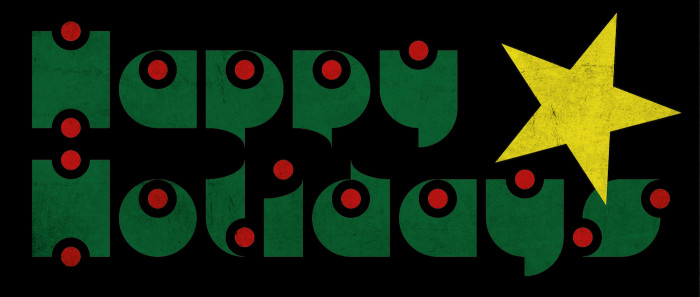
Happy Hollydays! Inspired by elmoyenique's colours.
This looks pretty cool in color!
You might want to check the dot colors on Ë and Ö as those should be red instead of green, to match all the other dots; and the spacing on Ñ and Ý as they have a bit more spacing than it should…
Certain pairs with f (like fb, ff, fl, ft) might look better with kerning as the dot on the f seems to be too close to certain letters…
I like this pretty jewel. I really love the dieresis over U and Y.
Quite a fantastic festive font~
What a lovely and beautiful font… What a nice piece of work.